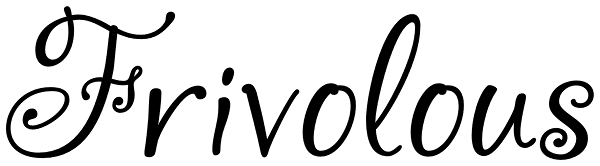
Frivolous
The informal style of Frivolous feature lots of flourishes and swirls that give it a charming and spontaneous handwritten quality.
Frivolous Font